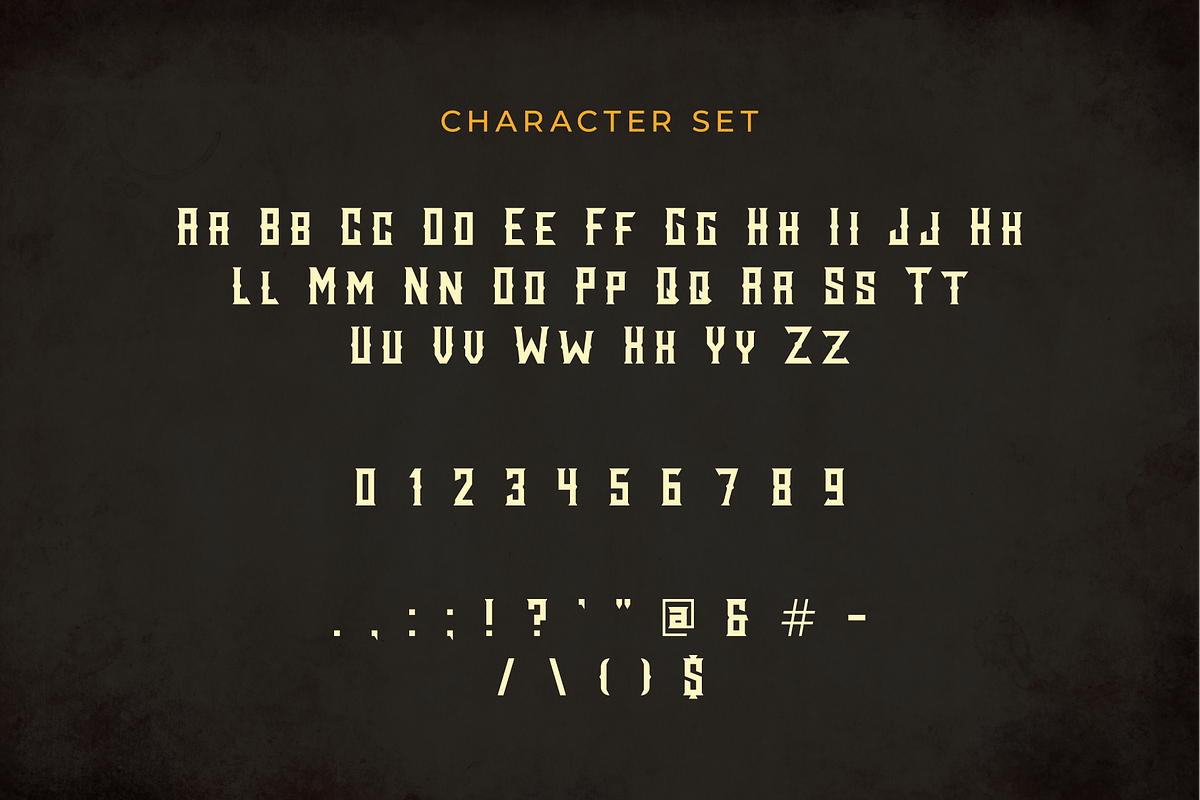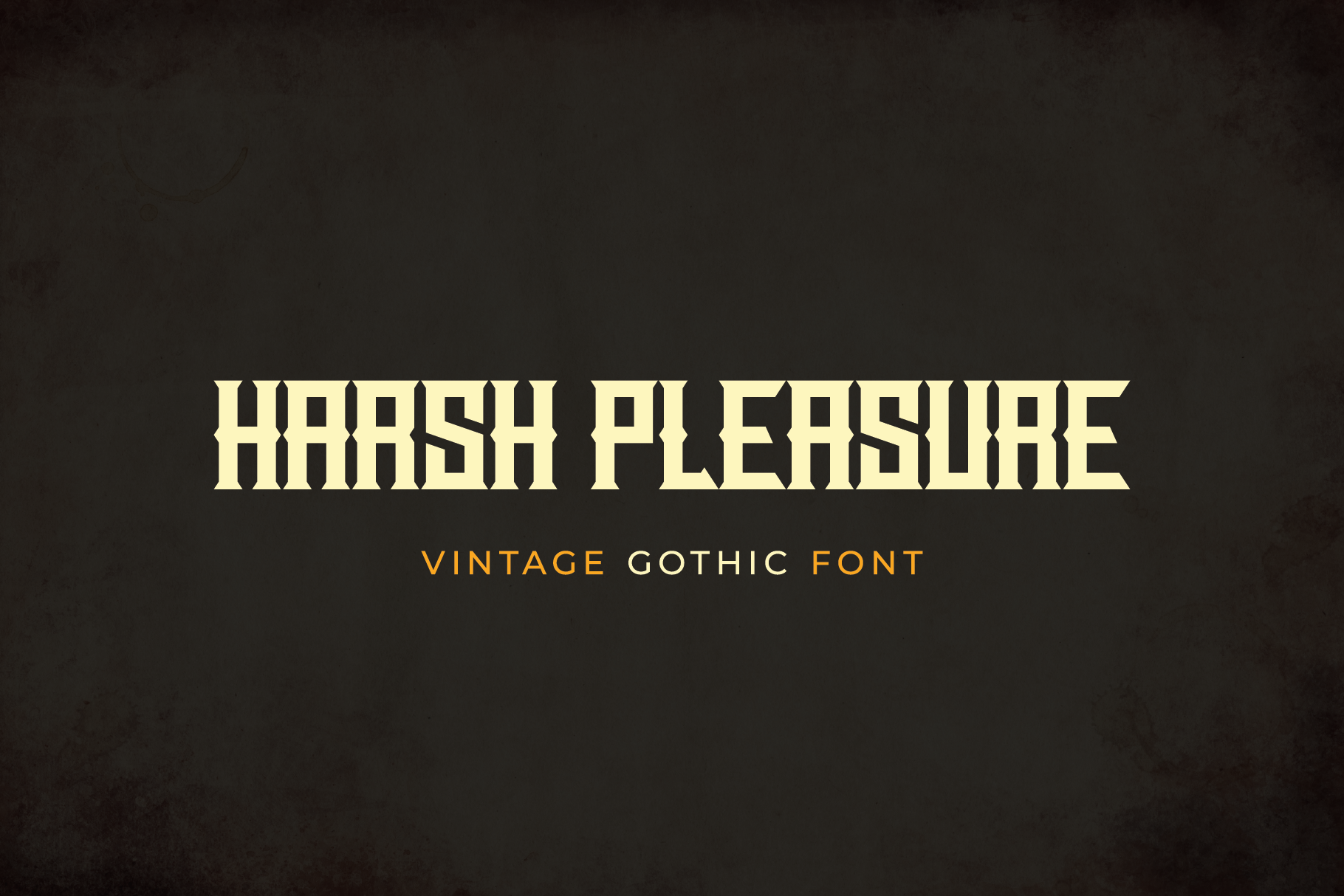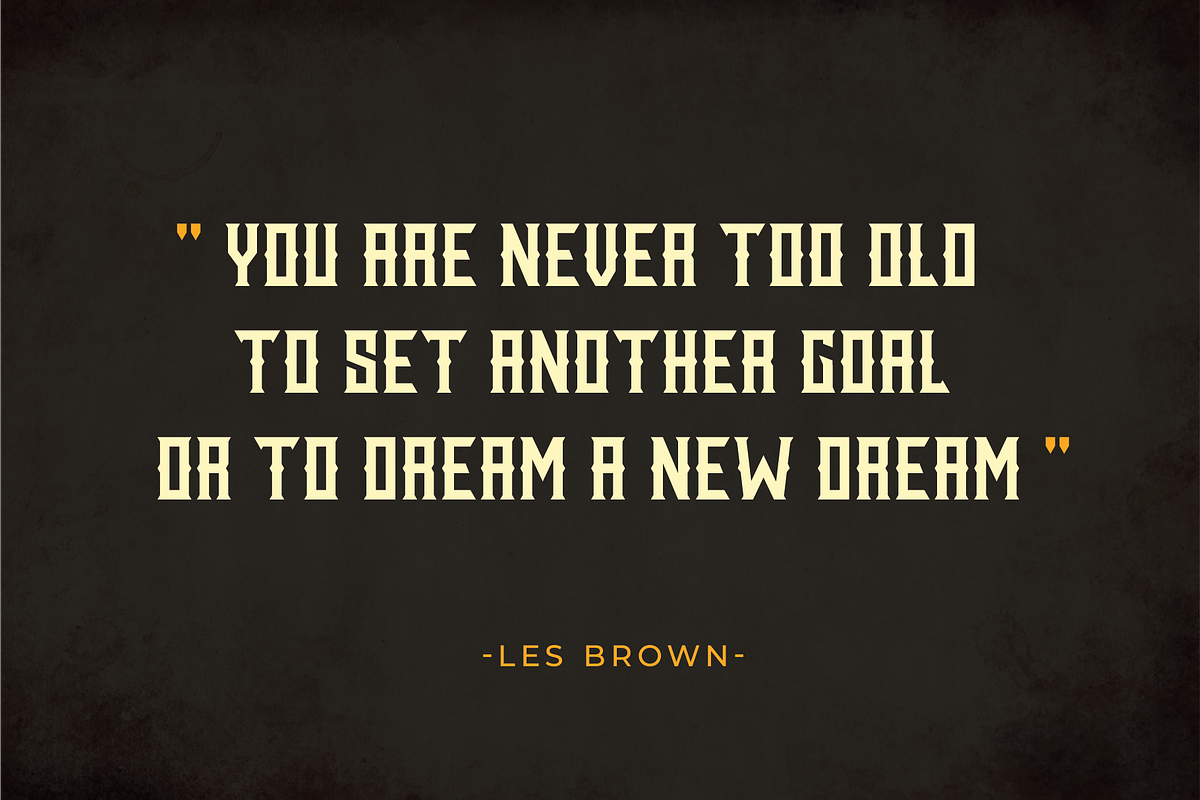
Harsh Pleasure Vintage Gothic Font
Harsh Pleasure is an edgy vintage font, inspired by blackletter and vintage elements this gothic font is the perfect choice for your next project if you want to deliver a vintage yet sophisticated presentation, harsh pleasure gothic is perfect for t-shirt designs, quotes, titles, headers, posters, etc.